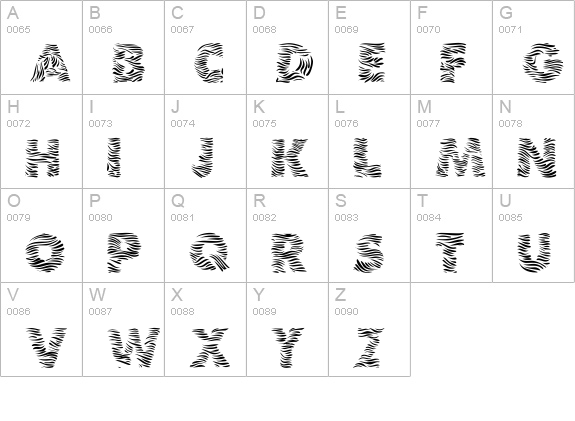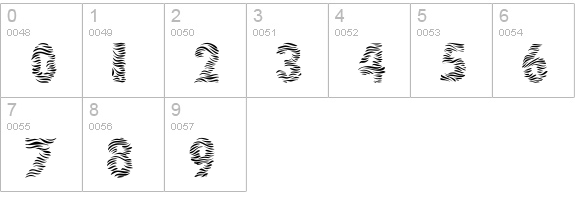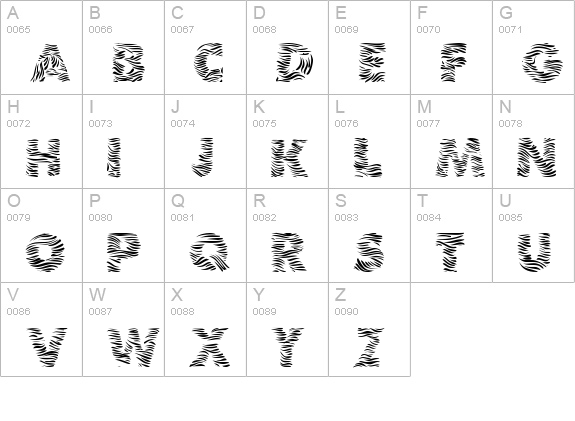
Introducing the bold and eye-catching 101! Zebra Print font, the ultimate choice for those seeking a touch of wild style in their designs. This unique font features intricate zebra print patterns that add a playful and dynamic element to any project. Whether you're creating posters, invitations, or branding materials, this font is sure to make a statement. Best of all, 101! Zebra Print font is available for free download at FontsMarket.com. Don't miss out on the opportunity to add this striking font to your collection without spending a dime. Let your creativity run wild with the distinct and captivating 101! Zebra Print font today!